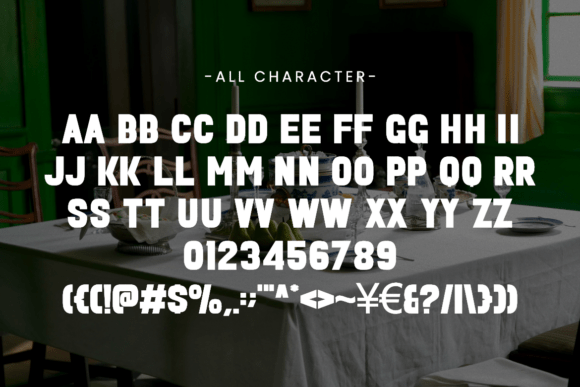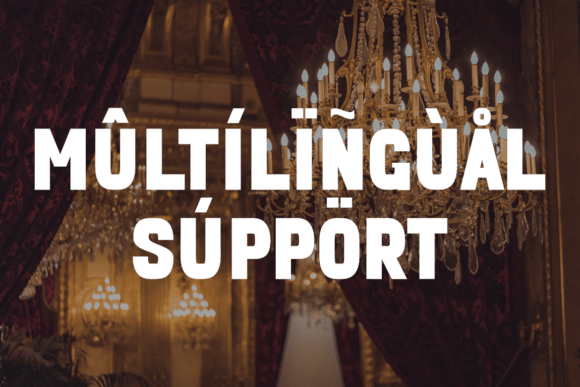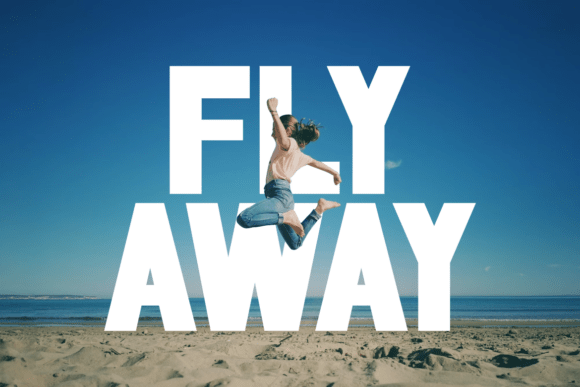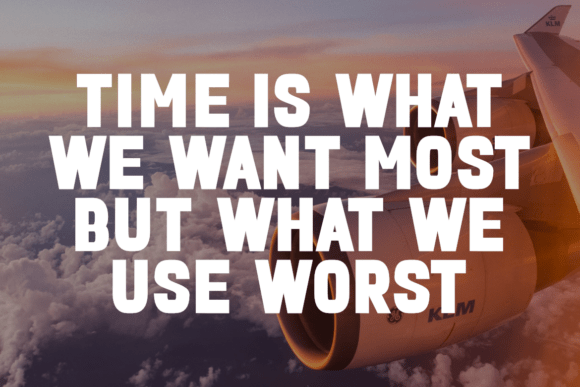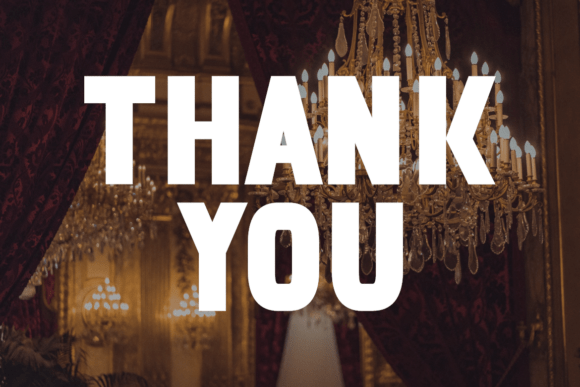
Elegant Font: Elevate Your Designs with Modern Sophistication
In the world of typography, a well-crafted font can make all the difference in creating visually stunning designs. Introducing Elegant, a modern, bold sans-serif font that’s specifically designed to make a strong visual impact. Whether you’re working on branding, packaging, editorial layouts, or social media graphics, Elegant delivers clarity, style, and professional aesthetics that will take your designs to the next level.
Precision Crafted for Perfection
Elegant is crafted with precision and clean shapes, making it ideal for logos, posters, headlines, and other creative projects where typography takes center stage. The font’s bold and modern design ensures that your message is conveyed with confidence and style, while its clean lines and minimalist aesthetic make it perfect for designs that require a touch of sophistication.
Versatile and Adaptable
One of the standout features of Elegant is its versatility. This font pairs well with both minimalist and bold design directions, making it a go-to choice for designers who want to create a wide range of visual effects. Whether you’re looking to create a simple, yet elegant logo or a bold, eye-catching poster, Elegant is the perfect choice.
Technical Specifications
Use Cases for Elegant Font
So, where can you use Elegant? The possibilities are endless! Here are a few ideas to get you started:
- Branding: Create a lasting impression with a bold, elegant logo that perfectly represents your brand’s values and personality.
- Packaging: Stand out on store shelves with eye-catching packaging designs that showcase your product in style.
- Editorial Layouts: Add a touch of sophistication to your editorial designs, including magazines, newspapers, and books.
- Social Media Graphics: Create engaging social media graphics that grab attention and drive engagement.
- Posters: Design stunning posters that showcase your message in a clear and concise manner.
- Headlines: Add a touch of elegance to your headlines and titles with a font that’s specifically designed to make a strong visual impact.
Why Choose Elegant Font?
So, why choose Elegant font for your next design project? Here are just a few reasons:
- Unique and Modern Design: Elegant boasts a unique and modern design that’s sure to make your designs stand out from the crowd.
- Highly Versatile: The font’s versatility makes it perfect for a wide range of design applications, from branding to packaging and editorial layouts.
- Easy to Use: Elegant comes in multiple formats and supports multilingual characters, making it easy to use in your favorite design software.
- Professional Aesthetics: The font’s clean lines and minimalist aesthetic make it perfect for designs that require a touch of sophistication and professionalism.
In conclusion, Elegant font is a modern, bold sans-serif font that’s specifically designed to make a strong visual impact. With its precision-crafted design, versatility, and technical specifications, it’s the perfect choice for designers who want to create stunning visual effects. Whether you’re working on branding, packaging, editorial layouts, or social media graphics, Elegant is the perfect choice for your next design project.